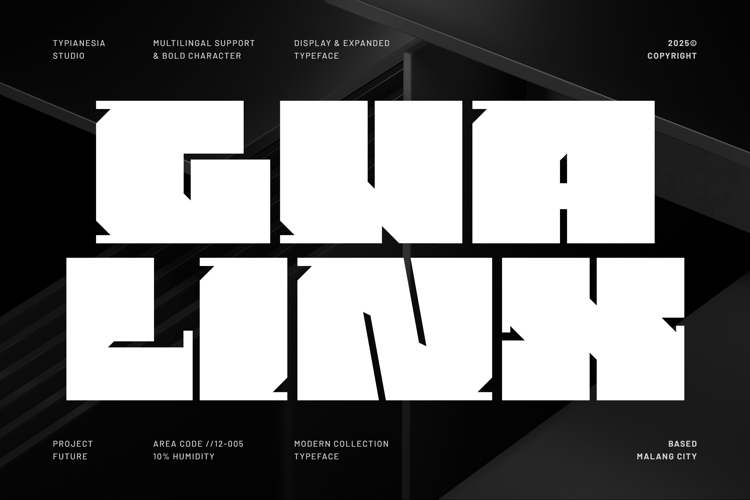
Gualinx - Modern Expanded Bold Sans Serif Font
Gualinx - Modern Expanded Bold Sans Serif Font - Geometric Ink-trap Typeface
Gualinx is a stunning modern, bold, and expanded display typeface that captures a bold, futuristic energy. With its strong, geometric sans structure and dynamic ink trap details, this font is engineered to command attention. Perfect for high-impact headlines and distinctive logos, standout choice for high-energy events like festival promotions, as well as urban and sports branding, ideal for game titles, poster campaigns, and cutting-edge advertising. The bold character and unique design hints at technology and space, ensuring your brand looks innovative whether on web platforms or in print. The expanded width gives your text maximum visibility, guaranteeing that your message is seen and remembered.
GUALINX